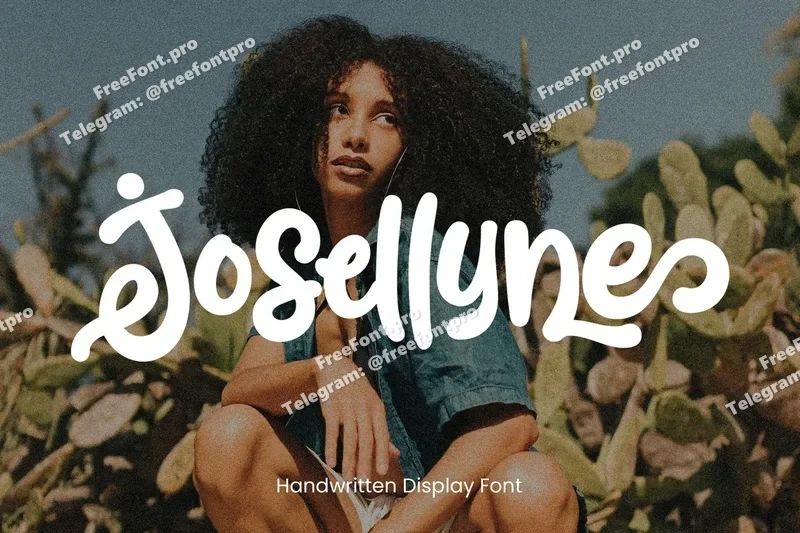
Josellyne – Handwritten Display Typeface
Josellyne is a bold and expressive handwritten display typeface that combines smooth curves with a handcrafted brush feel. Inspired by personal lettering, it brings a friendly, playful personality to logos, quotes, and packaging. With 100+ ligatures and alternates, Josellyne adds natural rhythm and variation—delivering an authentic handwriting touch that feels warm, free, and fun.
Uppercase & lowercase letters
Numerals & punctuation
100+ discretionary ligatures & stylistic alternates
Multilingual support (Latin + accents)
Brush handwritten style
Branding & logo lockups
Quotes and social media titles
Lifestyle photo overlays
Product packaging & labels
Poster & magazine titles
Greeting cards & wedding invitations
Menu boards & café signage